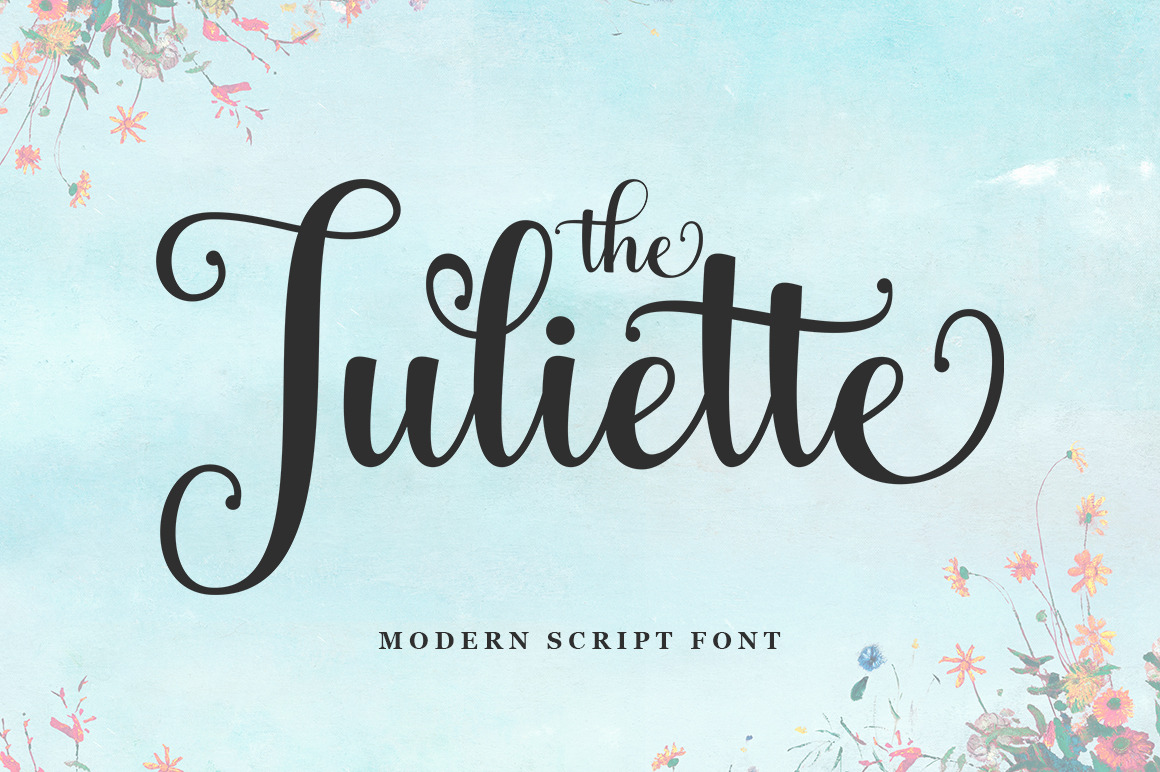
The Juliette | Script Font
The Juliette Script is a modern script typeface with characters that dance along the baseline. It has a casual and yet elegant touch. It can be used for various purposes such as logos, wedding invitations, headings, t-shirts, letterhead, signage, lables, news, posters, badges etc.
The fonts include OpenType features with stylistic alternates, ligatures and multiple language support.